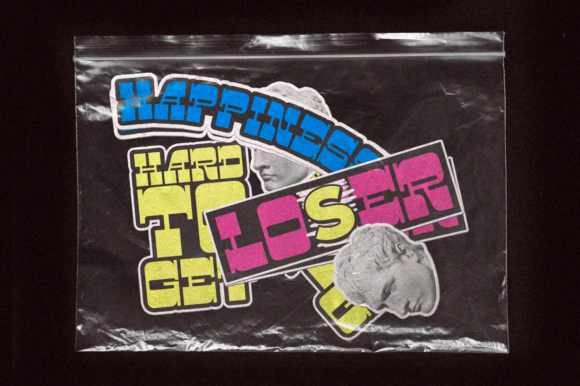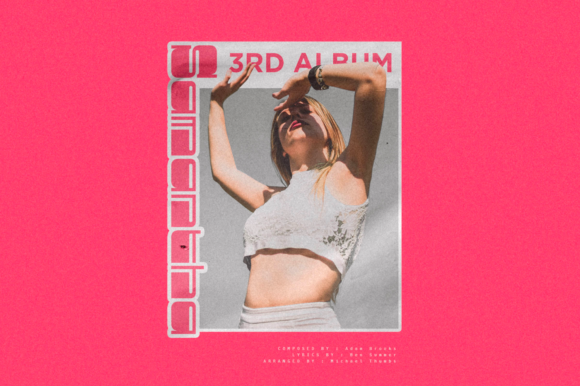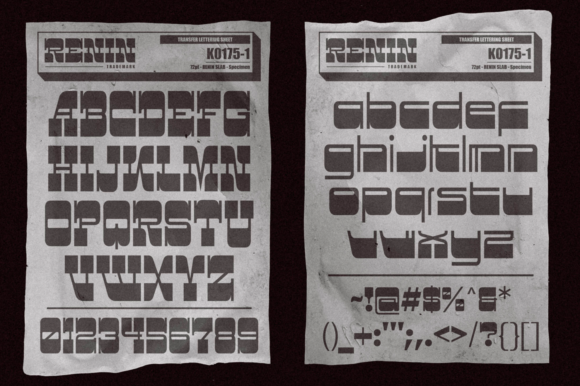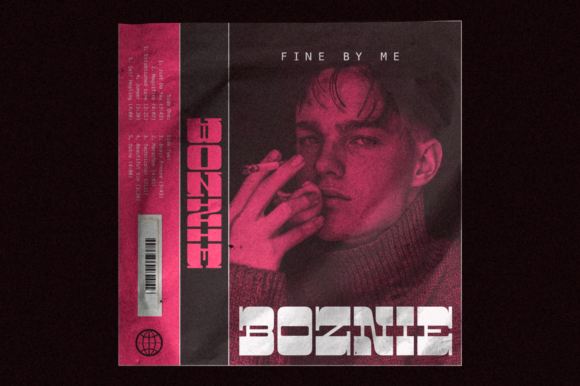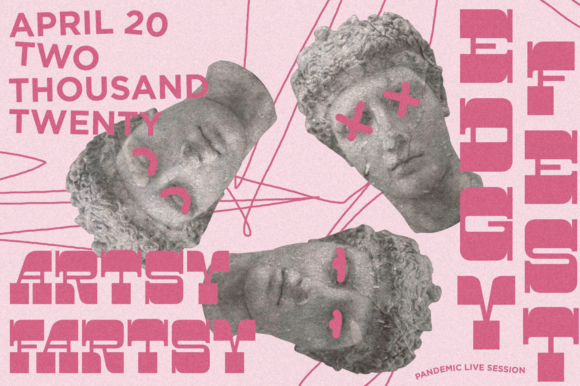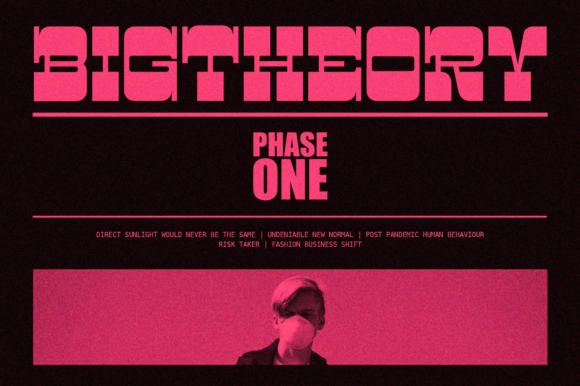
Introduction to Renin Font
Have you ever stumbled upon an old western film, and been captivated by the gritty, worn-out aesthetic of the title cards? The rough texture, the weathered look, and the classic typography all come together to transport you to a bygone era. For designers, capturing that essence in a modern creative project can be a challenge. But what if you had the perfect tool to add that vintage touch to your work? Enter the Renin Font, a bold, vintage-styled slab serif font that’s about to become your new design BFF.
As a valuable design resource, the Renin Font is perfect for adding a retro touch to labels, branding, ads, or pretty much anything that requires a dash of nostalgia. With its transparent background and high-quality design, you can trust that this font will elevate your creative project to new heights.
Key Features of Renin Font
- High-quality design resource suitable for various creative projects, including graphic design, digital art, and typography.
- Unique characteristics include its modern, sleek design and versatility, making it an excellent choice for designers looking to add a touch of sophistication to their projects.
Honest Review: Renin Font
As a designer, I’m always on the lookout for high-quality design resources to elevate my creative projects. Recently, I stumbled upon the Renin Font, and I must say, it’s been a game-changer.
- ✨ The font is highly customizable, allowing me to adjust the style to fit my specific design needs.
- ⚠️ The font may not be suitable for all types of creative projects, especially those that require a more traditional or classic look.
- ⚠️ The font can be a bit overused, so be cautious not to overdo it in your design.
Overall, I’m really impressed with the Renin Font. It’s a versatile and high-quality design resource that I’ll be using for my future projects. Its transparent background and customization options make it a valuable addition to any designer’s toolkit.
The Renin Font is a high-quality design resource that offers a unique and creative touch to any project. With a transparent background, this font is perfect for adding a touch of elegance and sophistication to your designs.
To get the most out of the Renin Font, use it in combination with other design elements, such as graphics and images. Experiment with different font sizes and colors to create a unique and eye-catching design.
The Renin Font is perfect for a variety of design projects, including:
- Logos and branding